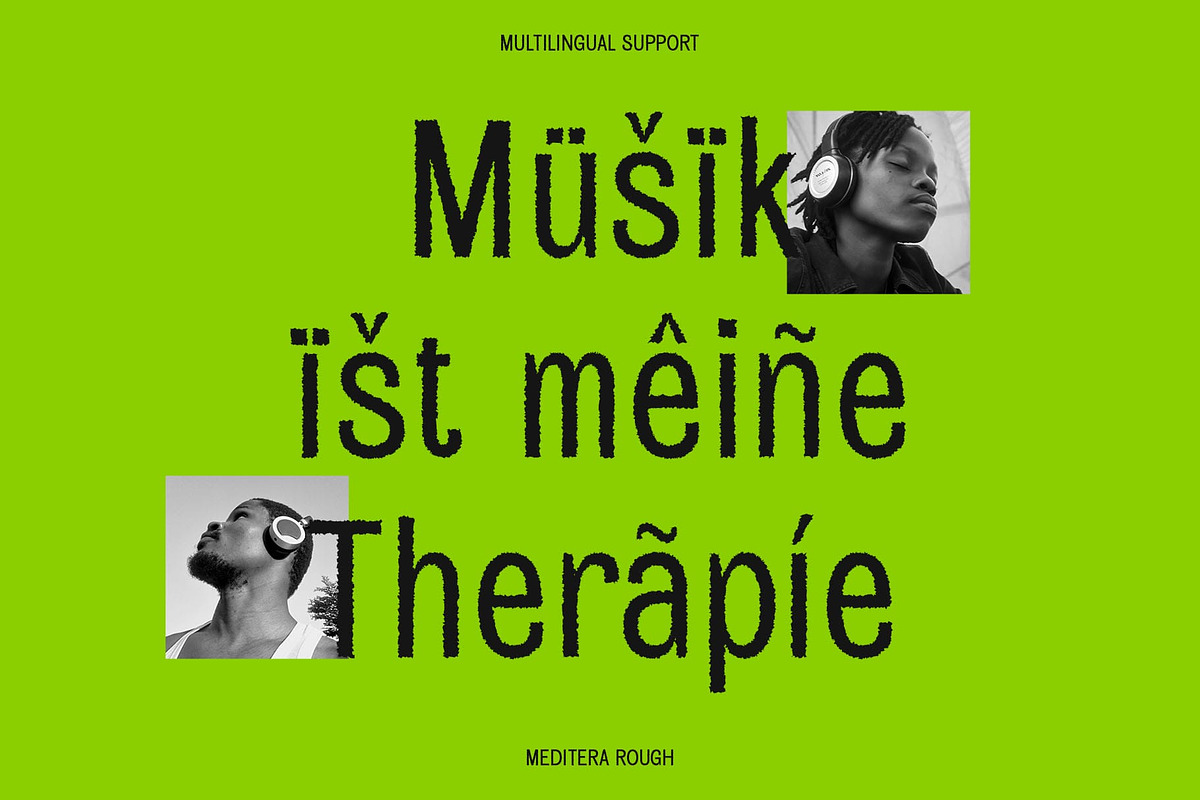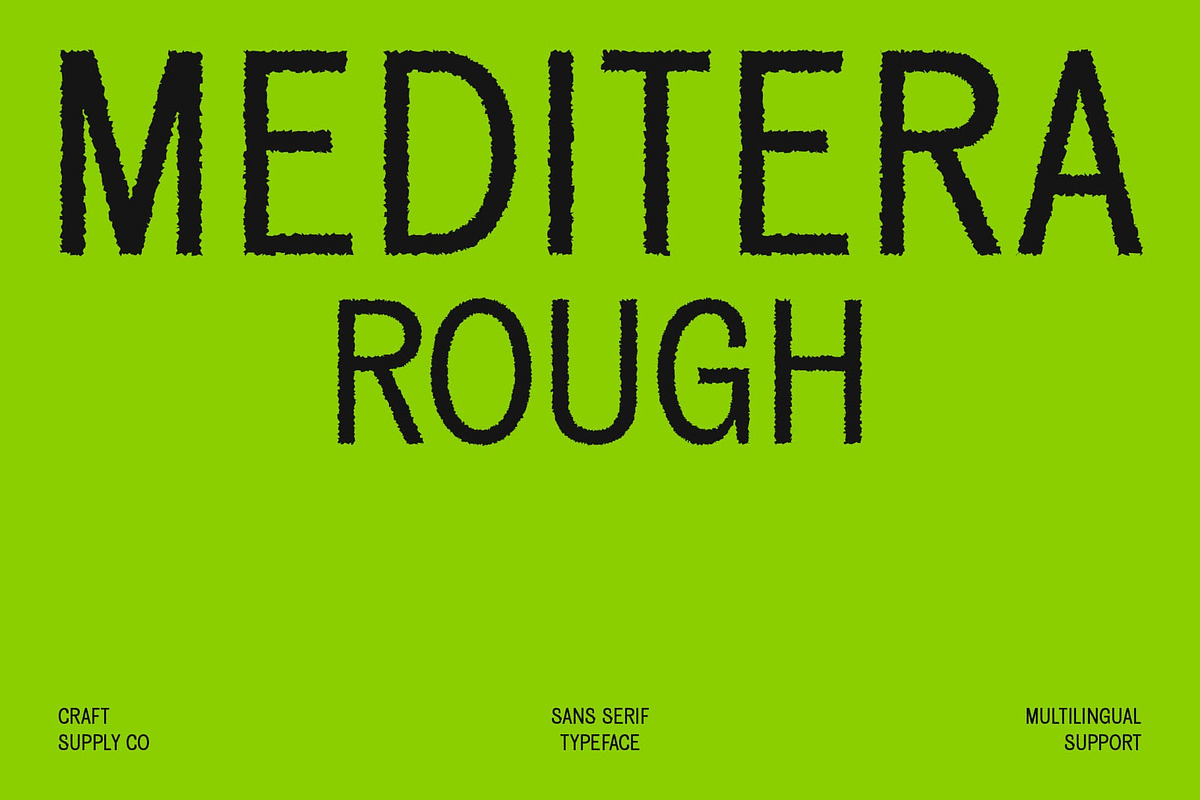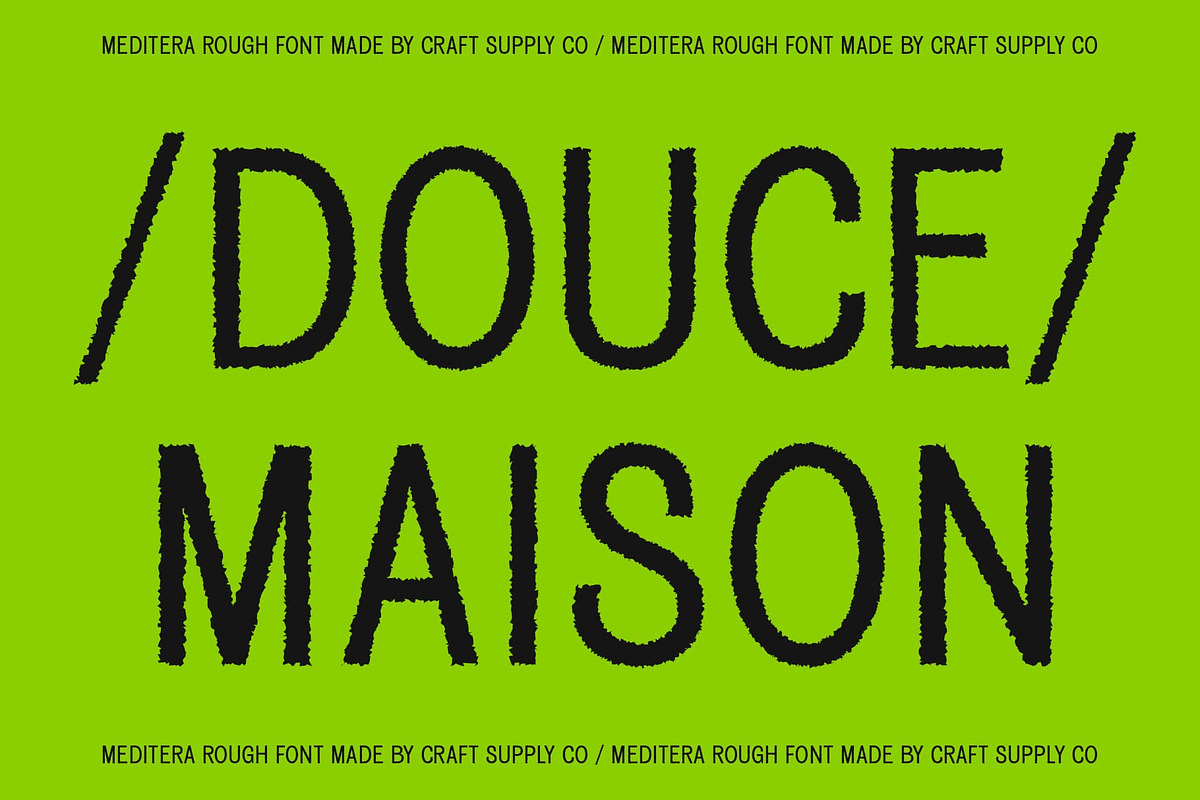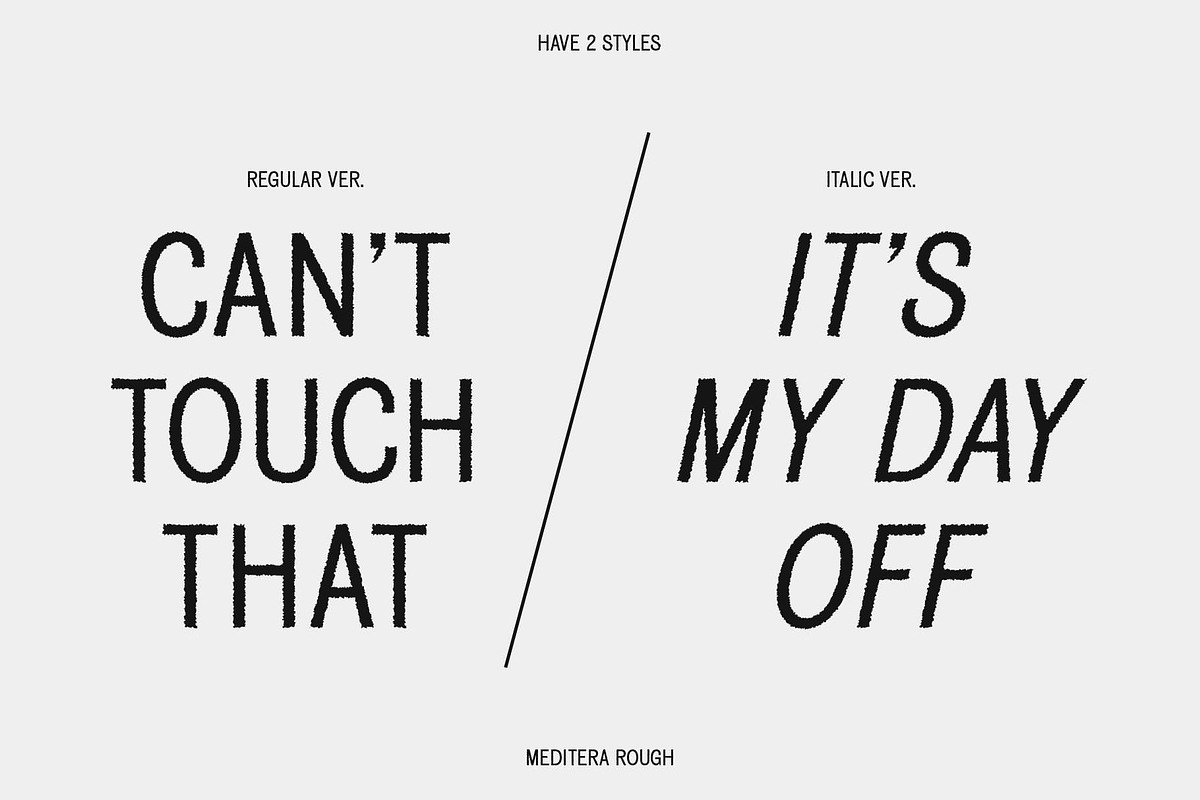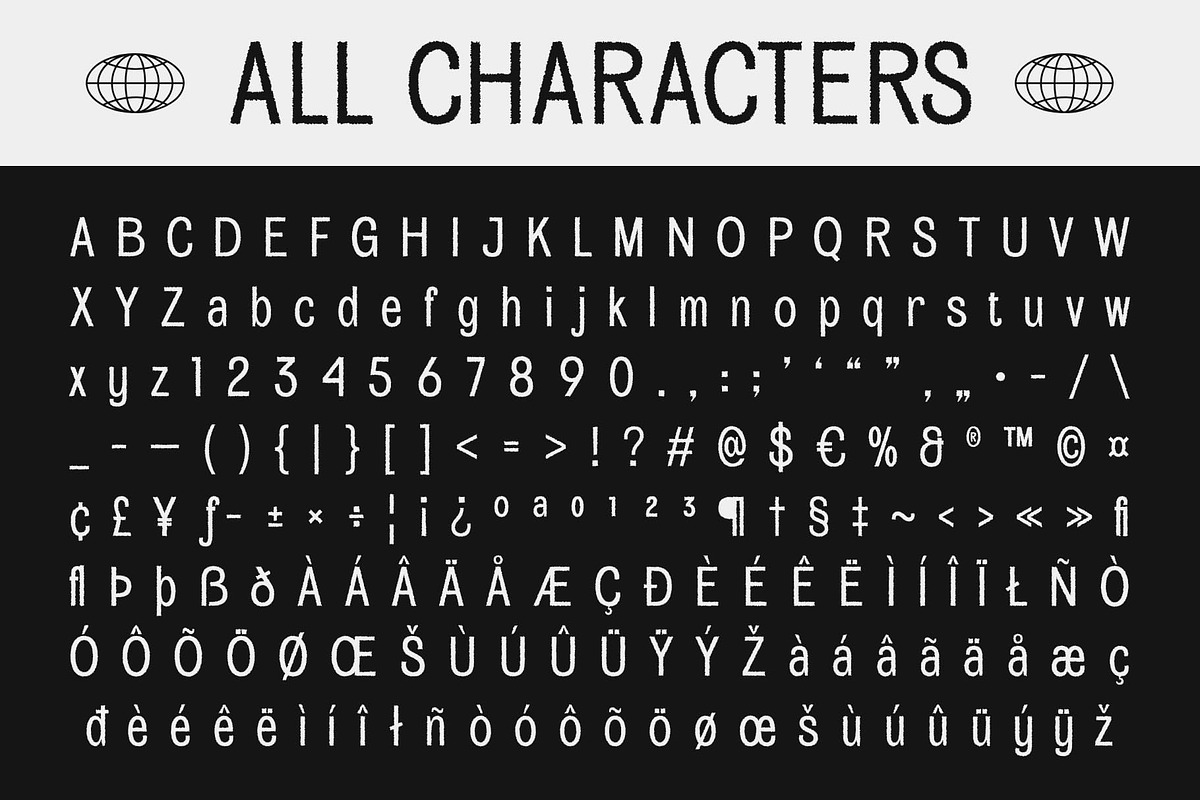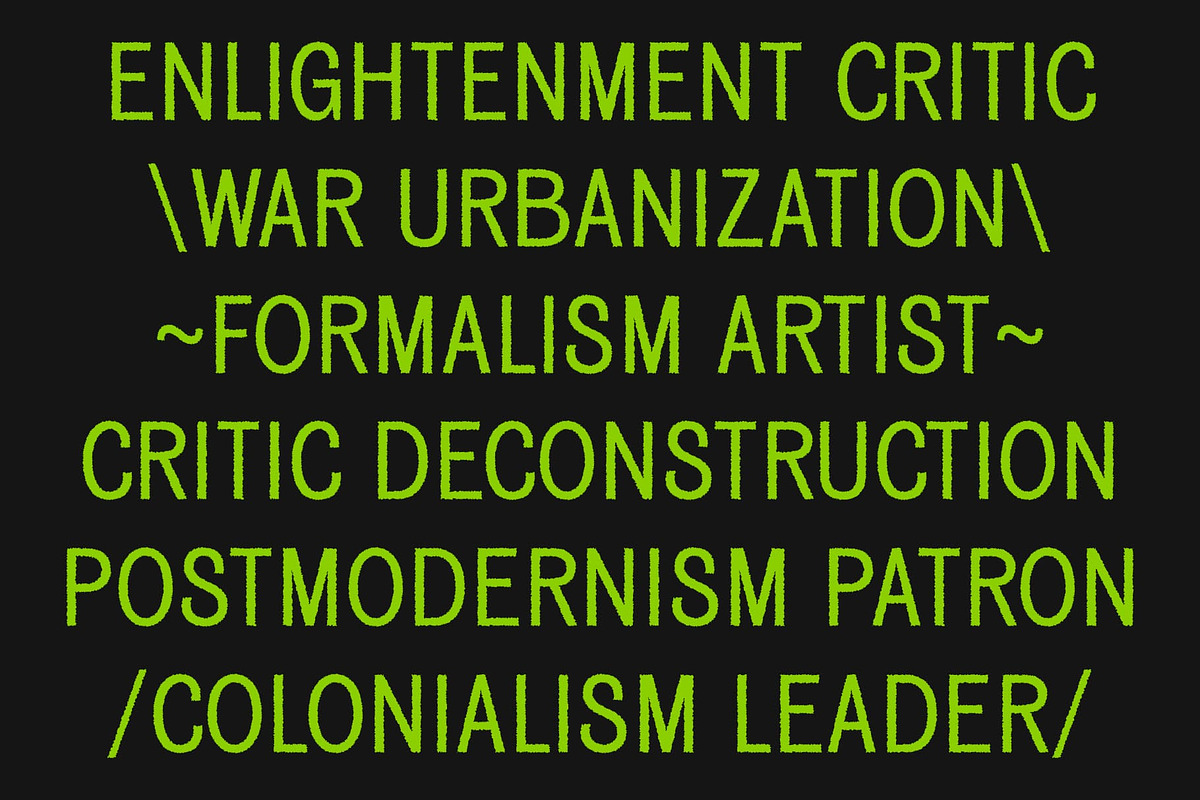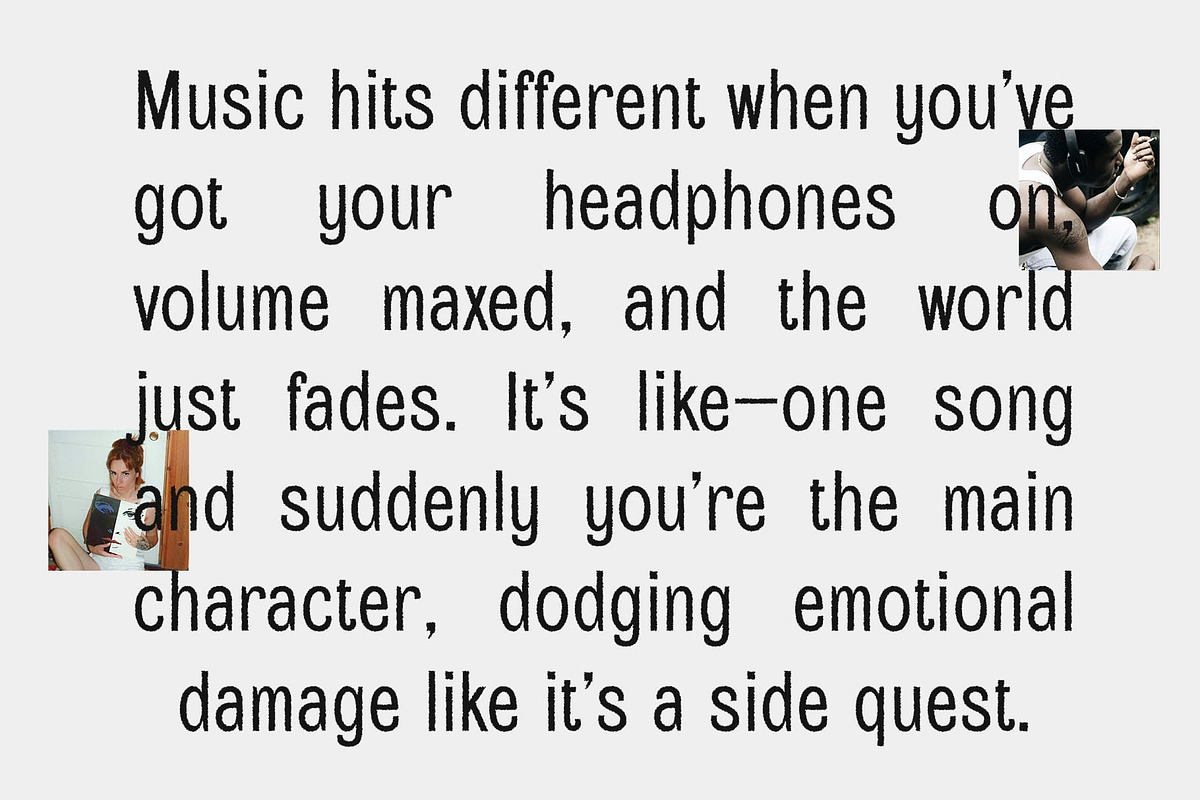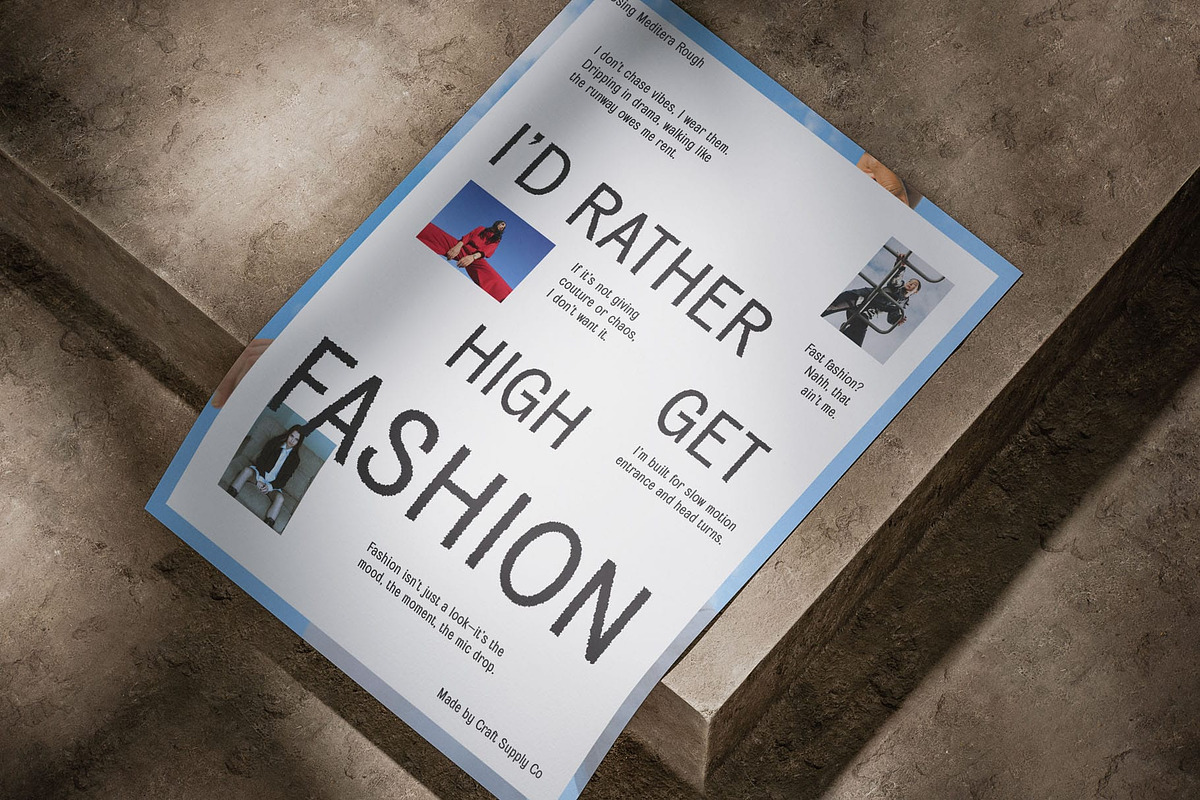
Meditera Rough
Meditera Rough Font – Modern Clarity with a Textured Twist
Minimalist and Professional Design Meditera Rough is a modern sans serif font that combines minimalist design with clean, geometric precision. Its condensed form maximizes space while maintaining a professional, highly efficient appearance, making it perfect for contemporary layouts and modern branding projects.
Space-Saving and Geometric Structure With its condensed style, Meditera Rough allows for more text in smaller spaces without sacrificing readability. The carefully balanced proportions of the letters convey a sense of order and structure, giving any project a modern, sleek aesthetic. Whether it’s used for headlines, web design, or business applications, the clean lines and geometric structure make this font a versatile and essential choice for space-conscious designs.
Rough Effect Adds Organic Character Layered with a rough effect, Meditera Rough takes on a more organic, textured quality. This balance between smooth modernity and rustic edge creates visual depth, making the font versatile for designs that need to stand out with both professional polish and bold character.
Perfect for Bold, Creative Designs Whether used for posters, product packaging, or brand identities, Meditera Rough’s unique blend of sleekness and ruggedness adds strong presence and dimensionality. It’s an ideal choice for creative projects that seek modern sophistication with an intriguing, industrial flair.